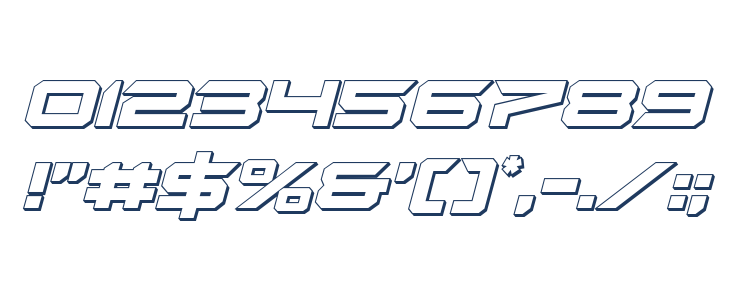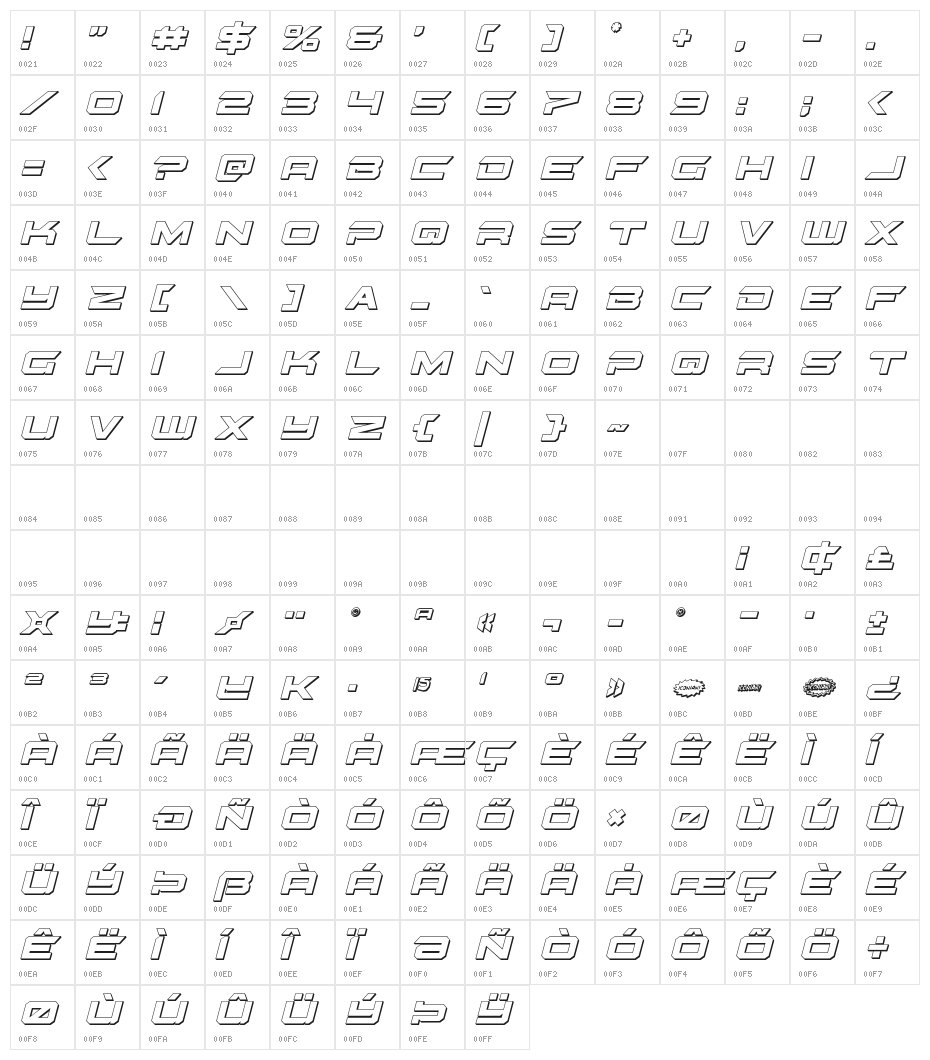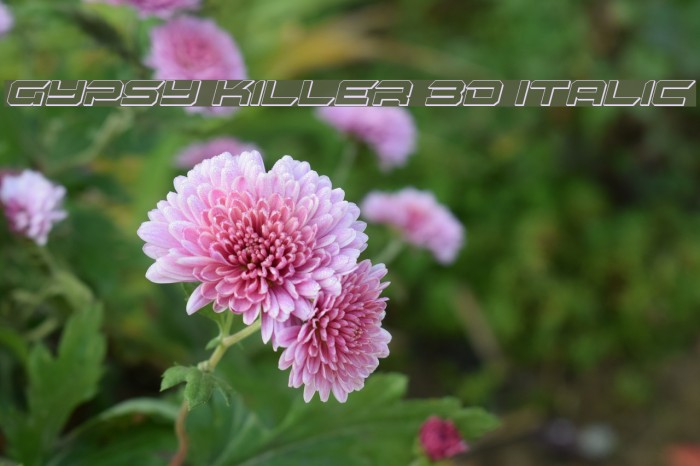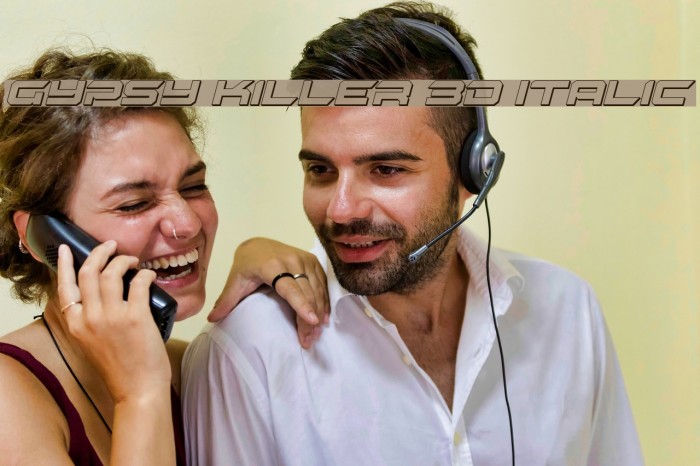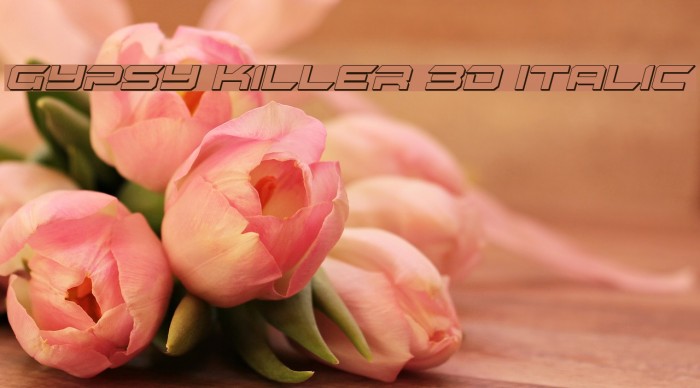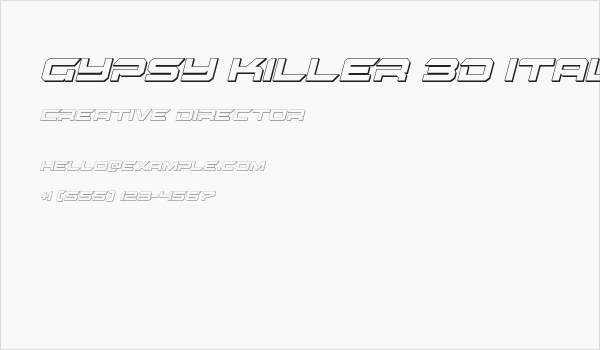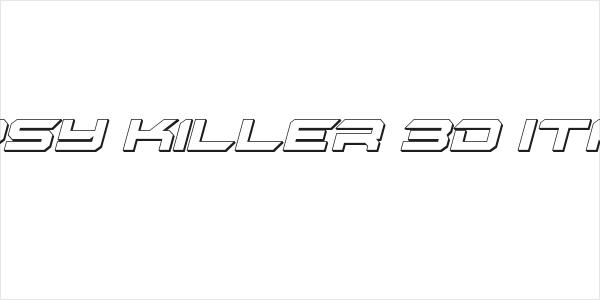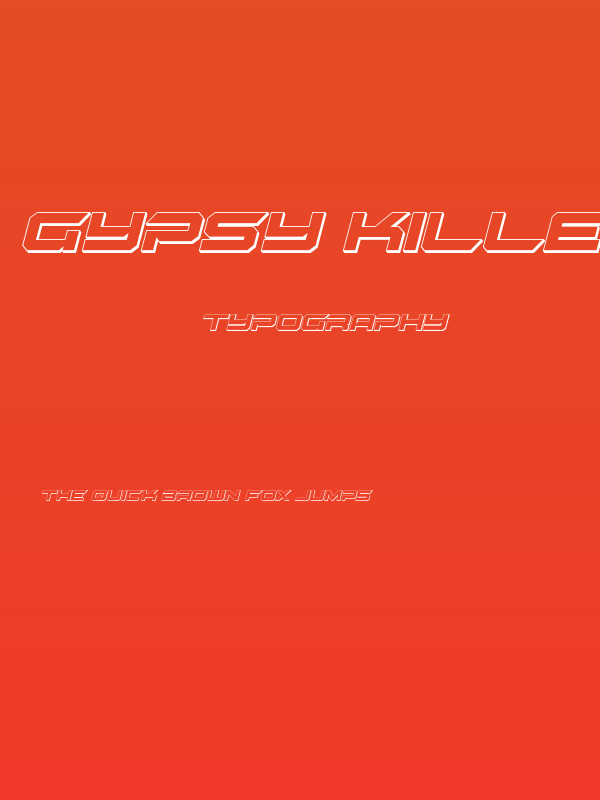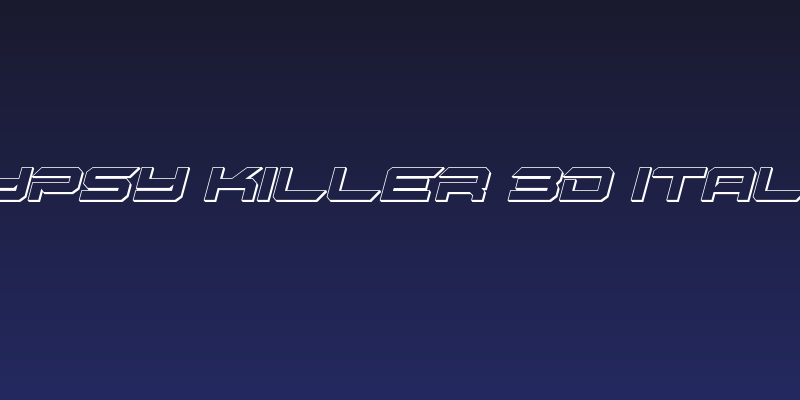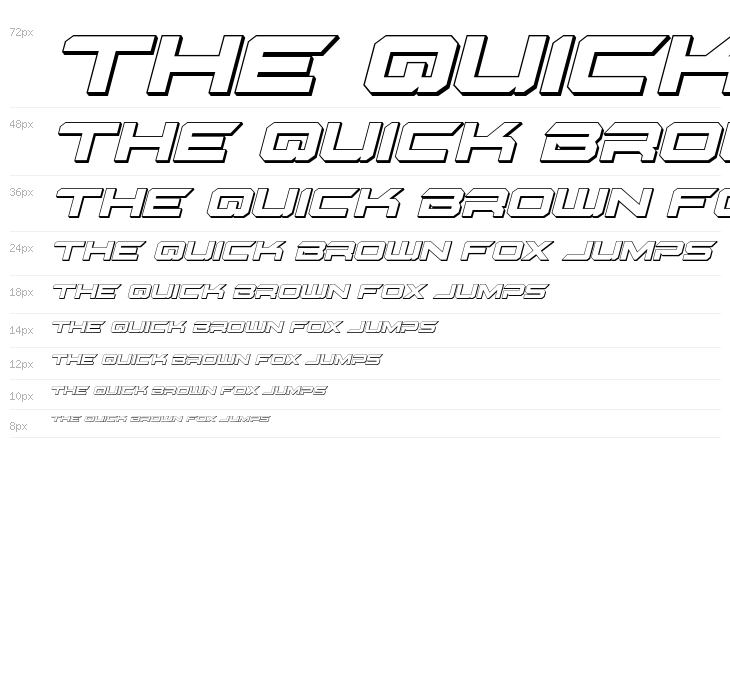
Gypsy Killer 3D Italic Font
Gypsy Killer 3D Italic Description
This font features a bold and dynamic 3D effect, giving each character a sense of depth and movement. The angular and geometric design is consistent across all letters and numbers, creating a futuristic and edgy appearance. The italicized slant adds a sense of speed and urgency, making it ideal for projects that require a modern and energetic feel. The characters are outlined, enhancing the 3D illusion and providing a striking visual impact. This font is perfect for attention-grabbing headlines, posters, and branding materials that aim to stand out.
| Proposed Projects | Ideal for sci-fi themed posters, video game titles, and modern branding projects. |